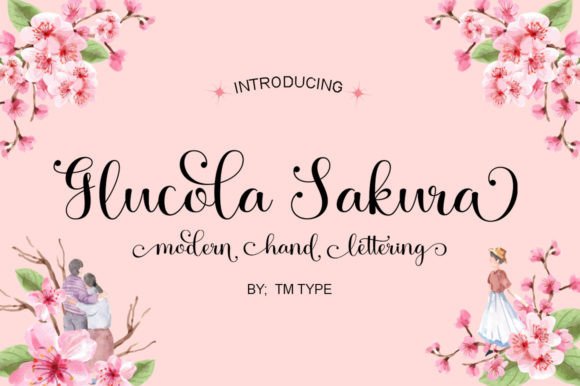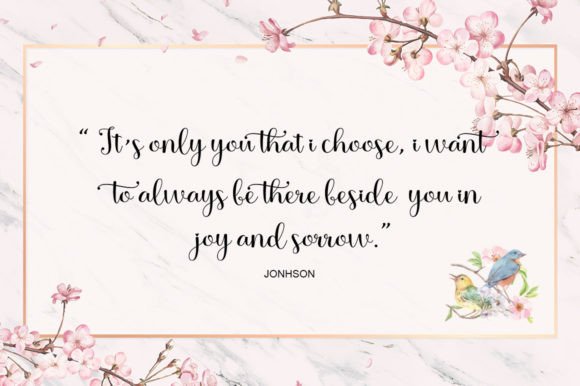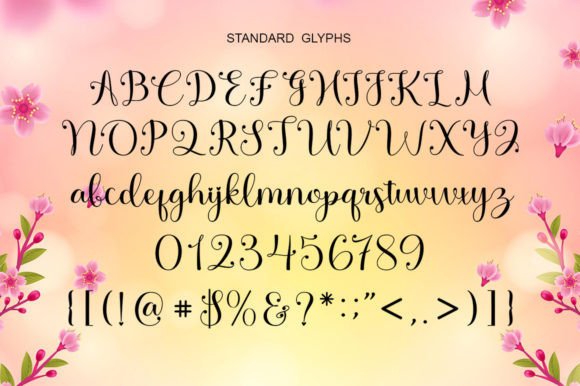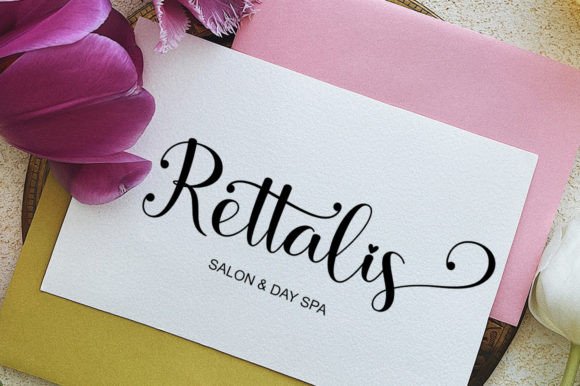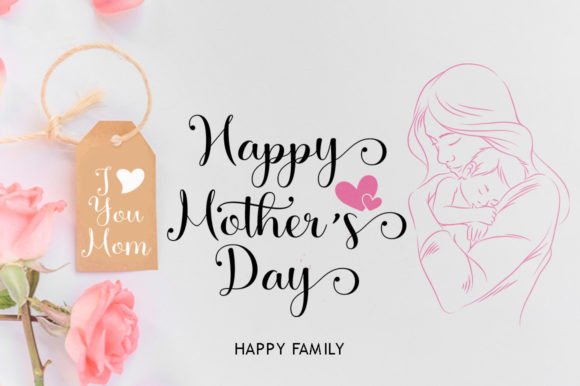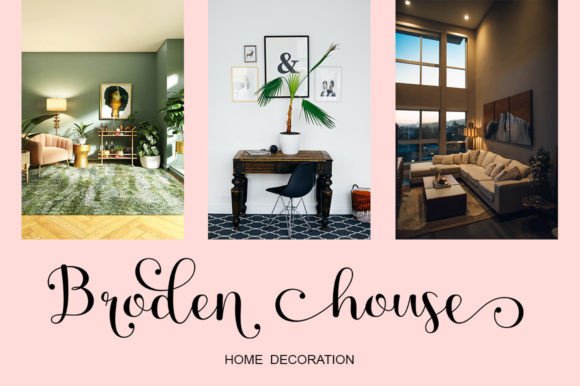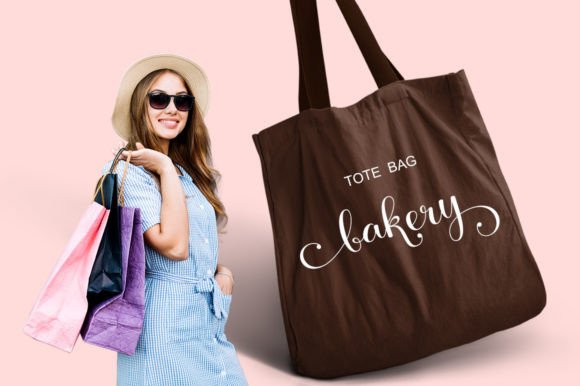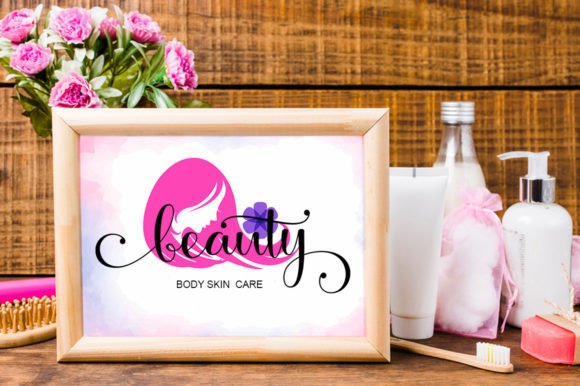
Glucola Sakura Font
About Glucola Sakura Font
“Glucola Sakura” is a lovely and sweet handwritten font that brings a touch of gentleness and romance to your design ideas. This font’s gentle and charming style makes it suitable for a variety of creative projects, enhancing them with a joyful and romantic feel.
The font’s handwritten style is characterized by its soft and graceful characters. It conveys a sense of warmth and tenderness, making it an excellent choice for projects that aim to create a cozy and romantic atmosphere. “Glucola Sakura” adds a delightful and heartfelt touch to your designs, making them stand out and leave a lasting impression.
In the world of design, fonts play a vital role in setting the mood and visual identity of a project. “Glucola Sakura” excels in these aspects by offering a handwritten font that is both lovely and emotionally appealing. Its aesthetics infuse your designs with a sense of sweetness and romance, making them captivating and memorable.
In summary, “Glucola Sakura” is more than just a font; it’s a lovely and heartfelt design tool that can elevate your creative projects with its gentle and romantic style. Whether you’re working on invitations, quotes, or any design that requires a touch of tenderness, “Glucola Sakura” is the font that can help you craft designs that are truly delightful and emotionally resonant.